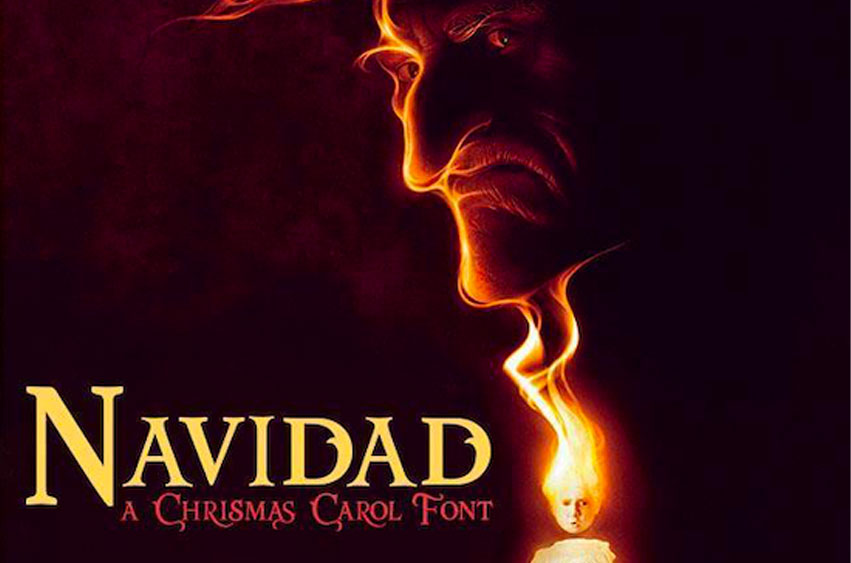
Navidad Font
Navidad Font is a great popular Disney typeface, it was created by FZ Fonts. The characters of this typeface are very simple and easy to read. This remarkable font is loved by everyone in view of its easy to retain also as well as simple to apply.
Navidad font is attractive as a type of typeface that is sensual, simple, smooth, glamorous, clean. And it’s very perfect for special events, social media posts, logos & branding, photography, advertisements, label, invitation, stationery, watermark, product packaging, wedding designs, product designs, and much more.